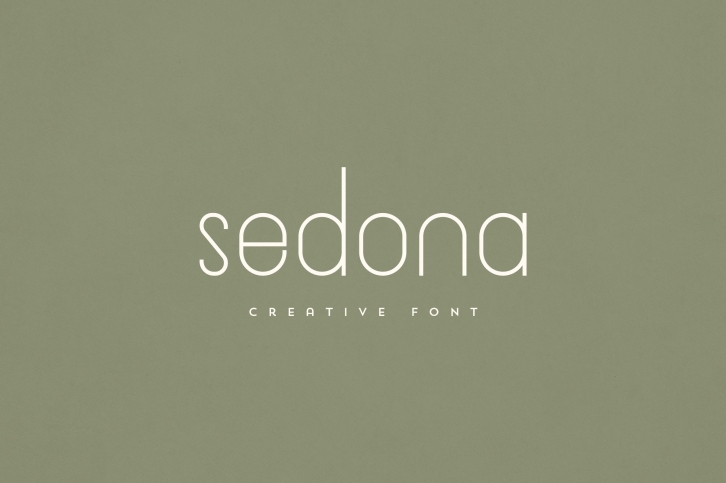
Sedona is a gorgeous font that was realeased on October 20, 2022. The font can be used in many style contexts and design environments. Perfect for invitations, magazines, websites, logos, and more! It was designed by VPcreativeshop and the file size is 4.24 MB. Thanks for checking out this font!